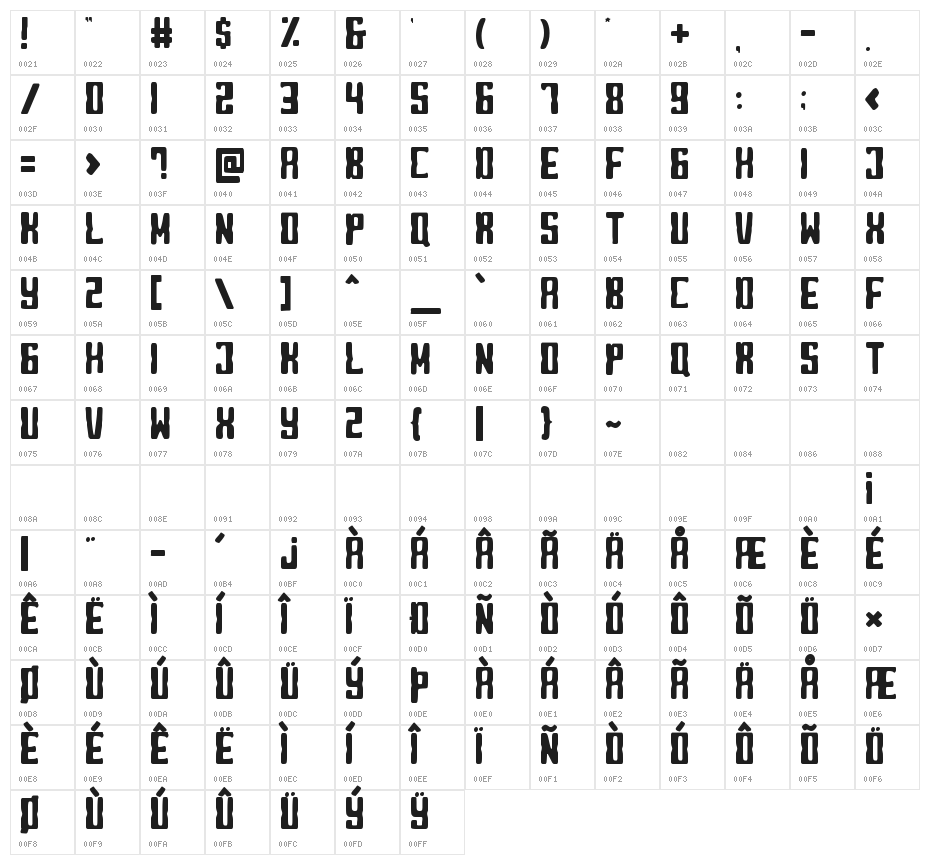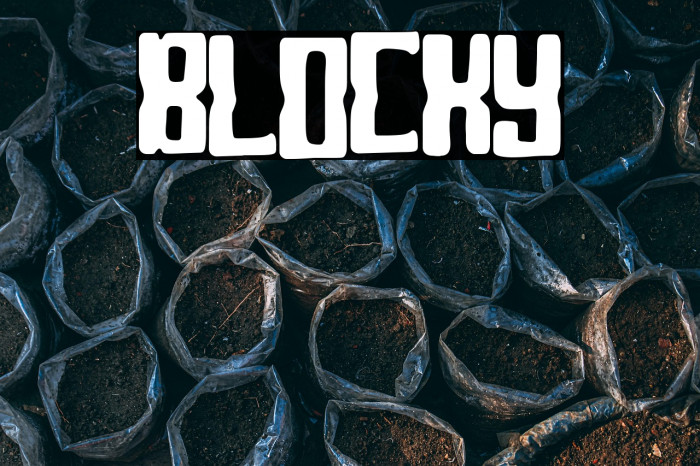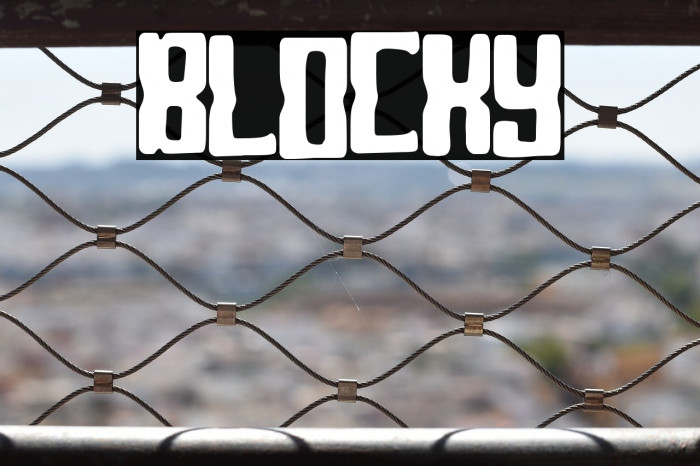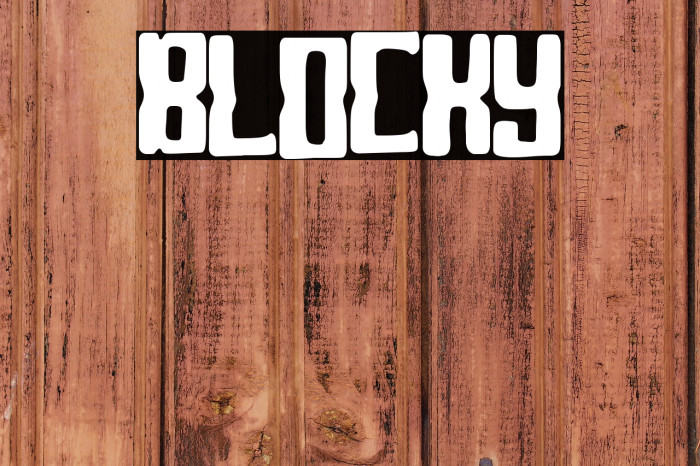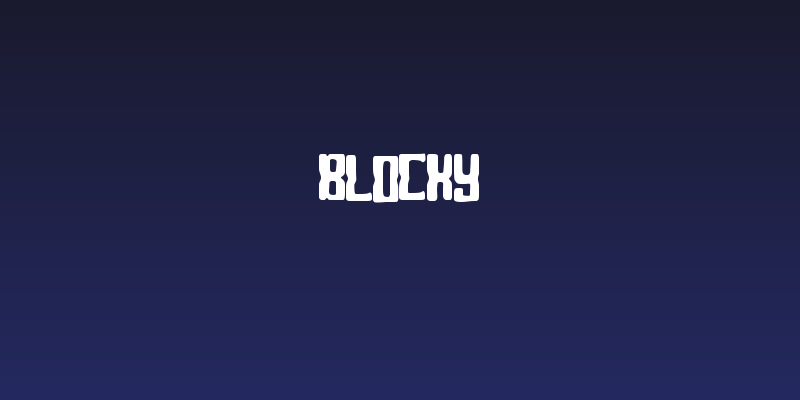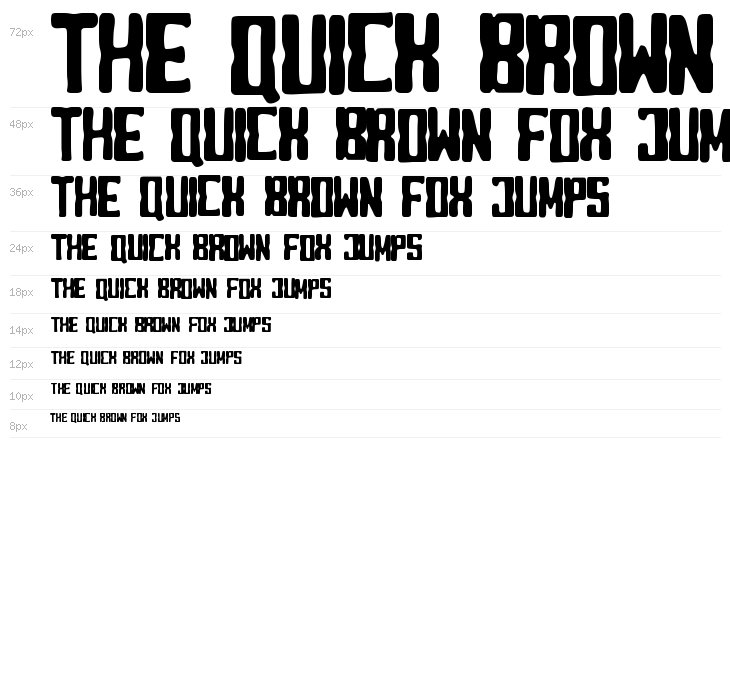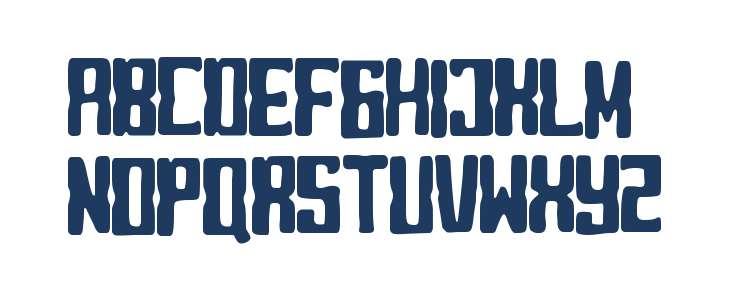
Blocky Font
Blocky Description
This font features a bold, blocky design with thick, uniform strokes that create a strong visual impact. The characters are tightly spaced, enhancing the compact and robust appearance. The style is reminiscent of retro or vintage aesthetics, with a playful yet assertive presence. The uppercase and lowercase letters maintain a consistent height, contributing to a cohesive look. The numbers and special characters follow the same bold and chunky design, ensuring uniformity across all elements. This font is ideal for projects that require a standout, eye-catching typeface.
Overall StyleVintage
Use CaseHeadlines, Logos
Proposed ProjectsIdeal for posters, headlines, logos, and branding materials that need a strong, impactful typeface.